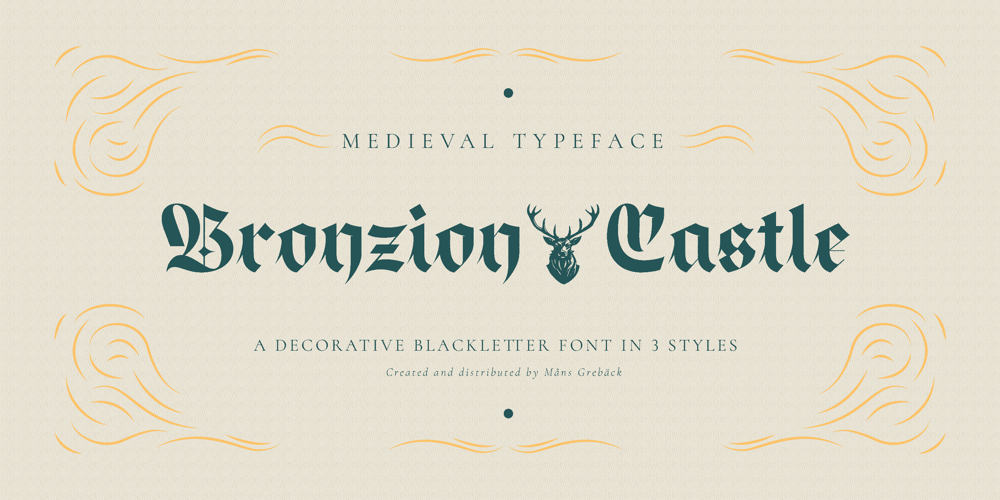
Bronzion Font Family was designed by Måns Grebäck and published by Mans Greback. Bronzion contains 6 styles and family package options. Bronzion is a blackletter typeface rooted in medieval aesthetics. With its dark ages inspiration, Bronzion is a captivating blend of calligraphy and heavy metal undertones. The typeface captures the ornamental beauty of middle ages manuscripts while catering to modern design needs. Its heavy, intricate design makes it perfect for projects that require a touch of medieval grandeur. Use characters 🌲🌳🎠🐂🐅🐆🐈🐉🐎🐕🐦🐯🐲🐺👑👸🗡🤴🦁🦅🦇🦌🦎🦓🦖 to create heraldry-like logos and symbols. Example: Magic🐉Empire